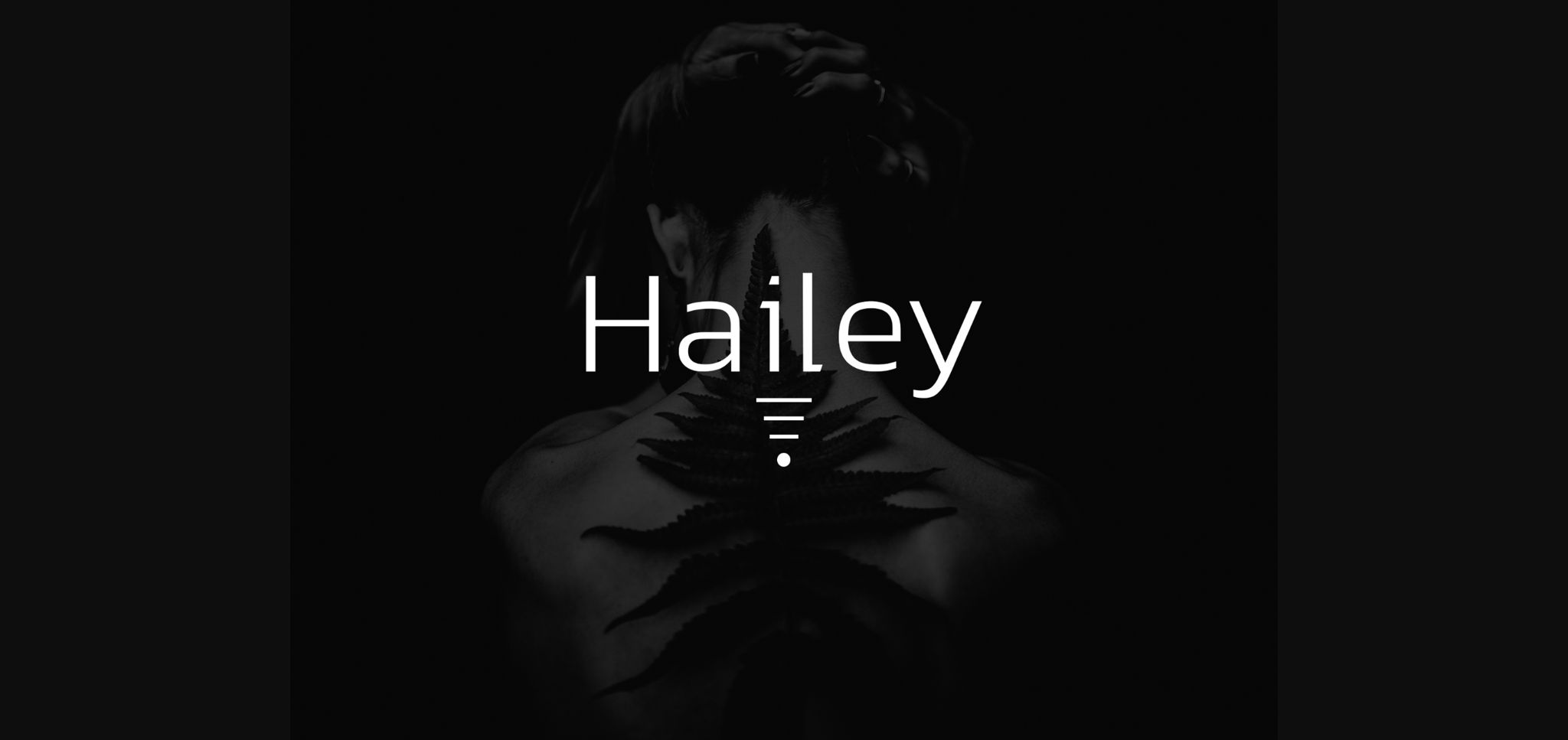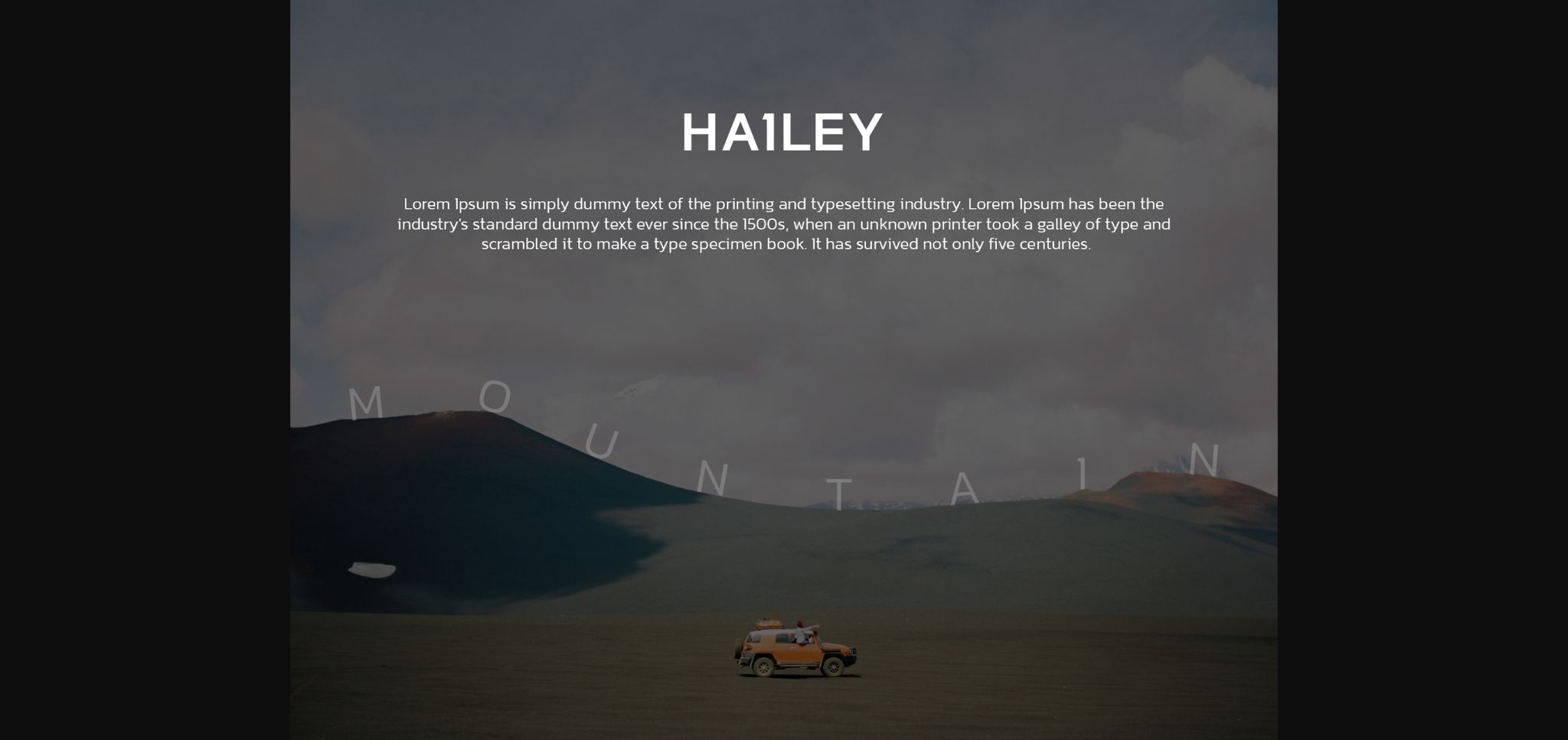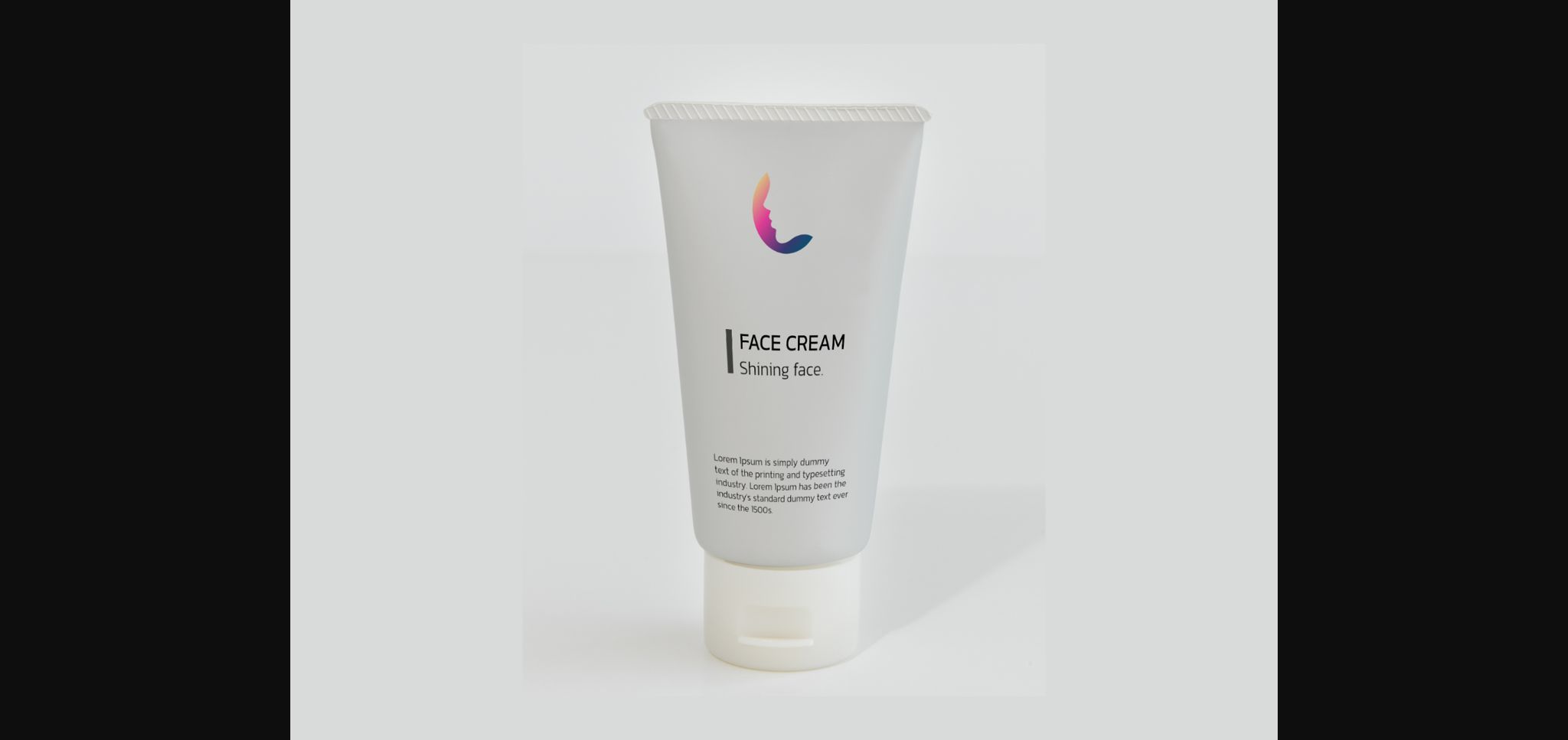
Hailey Font
About Hailey Font
Hailey is a sans serif font set which conveys a momentous one of a kind typography style. This typeface is easy to read which makes it perfect for headlines, big text, branding, logotypes & display usage. Also suitable for creating outstanding logos, promotional content, and marketing graphics that can really grab attention from your visitors.